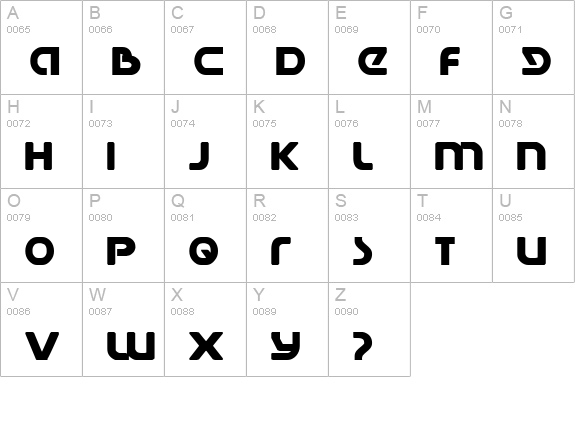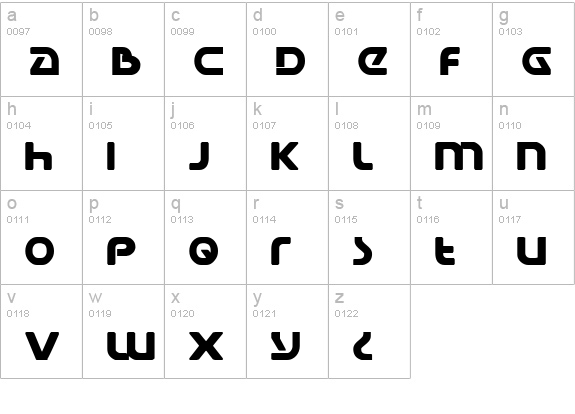
Universal Jack Bold is a strong, high-contrast variant in the Universal typeface family \xE2\x80\x94 well suited to headlines, attention-grabbing titles, and strong calls-to-action.
Universal Jack Bold font is a captivating and versatile typeface that exudes an air of confidence and strength. Its bold and commanding letterforms make a bold statement, making it perfect for headlines, titles, and logos that demand attention. With its clean lines and balanced proportions, Universal Jack Bold font captures the perfect balance between modernity and classic elegance. It is a font that effortlessly blends contemporary design trends with timeless appeal, making it suitable for a wide range of design projects. One of the most remarkable aspects of Universal Jack Bold font is that it is available for free. Yes, you heard that right! This amazing font can be freely downloaded at FontsMarket.com, allowing designers and creatives to enhance their work without any cost or restrictions. The free availability of Universal Jack Bold font makes it an invaluable resource for professionals and beginners alike. Whether you are a seasoned graphic designer or just starting out, this font offers a world of possibilities, enabling you to bring your creative vision to life without breaking the bank. So, why wait? Head over to FontsMarket.com and download Universal Jack Bold font today. Unleash your creativity and make a lasting impression with this striking and free typeface that is sure to elevate your designs to new heights.